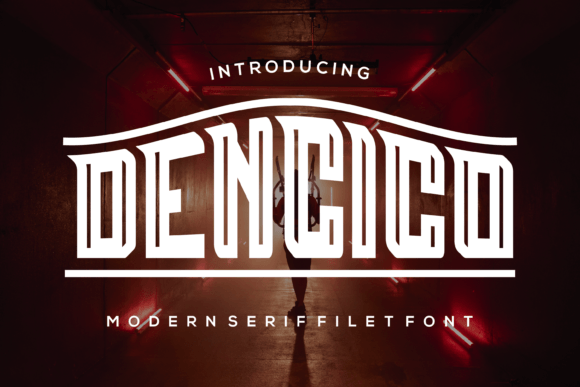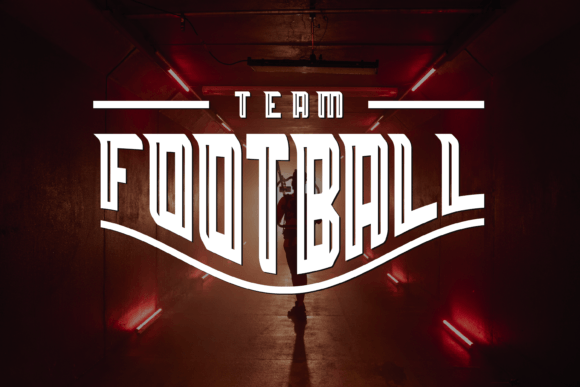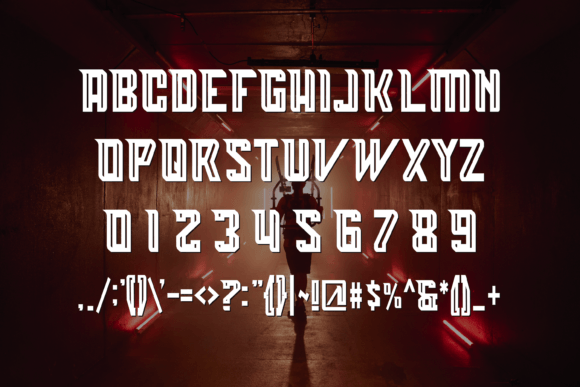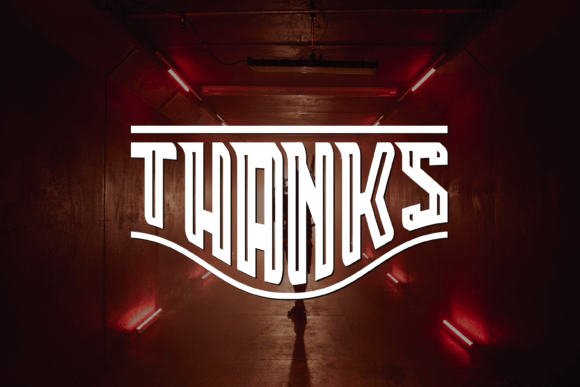
Dencico: A Distinctive and Charming Slab Serif Font
Dencico is a distinctive slab serif typeface that combines charming character with modern appeal. This versatile font perfectly balances interesting style with contemporary relevance.
Key Features of Dencico
- Distinctive Design: Offers unique and memorable letterforms.
- Charming Character: Brings personality to designs.
- Modern Appeal: Features contemporary design elements.
- Balanced Style: Combines interest with relevance.
Best Uses for Dencico
Thanks to its distinctive characteristics, Dencico works especially well for:
- Contemporary branding
- Creative headlines
- Modern display text
- Digital designs
- Marketing materials
- Website typography
- Editorial design
When using Dencico in your designs, keep these tips in mind:
- Try it for headlines or display text to showcase its distinctive style.
- Use different sizes to highlight its charming features.
- Pair with simpler fonts for body text to create balance.
- Let its modern appeal enhance contemporary layouts.
To sum up, Dencico is an excellent choice for designers seeking a distinctive slab serif font with charming character. Its ability to balance interesting design elements with contemporary relevance makes it perfect for modern projects. Whether you’re creating digital content, designing marketing materials, or developing brand assets, Dencico offers the perfect blend of personality and modern appeal.
Furthermore, Dencico’s distinctive design allows it to shine in contexts where both character and contemporary style are key. For instance, from website typography to editorial design, this font can elevate your projects with its unique charm. Also, its balanced appearance works particularly well in designs that aim to make an interesting yet relevant impact.
In conclusion, Dencico truly captures the essence of modern charm in slab serif typography. Its ability to work well in contemporary contexts while maintaining its distinctive character shows how versatile it can be. Therefore, for those wanting to add a touch of interesting sophistication to their work, Dencico can enhance any design with its unique style. Ultimately, it’s perfect for designers aiming to make a charming, modern impact across creative projects.